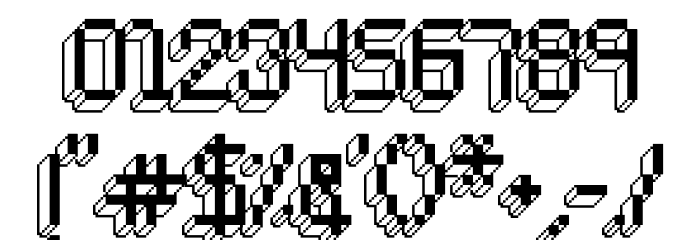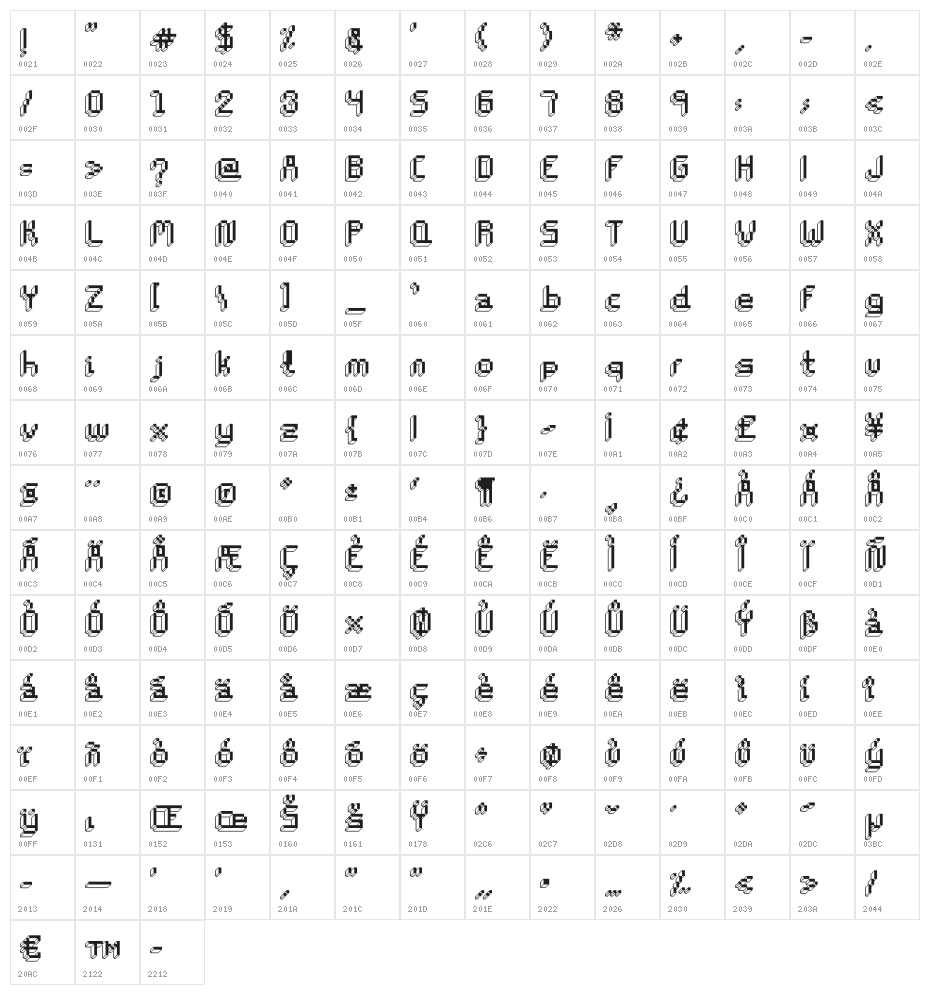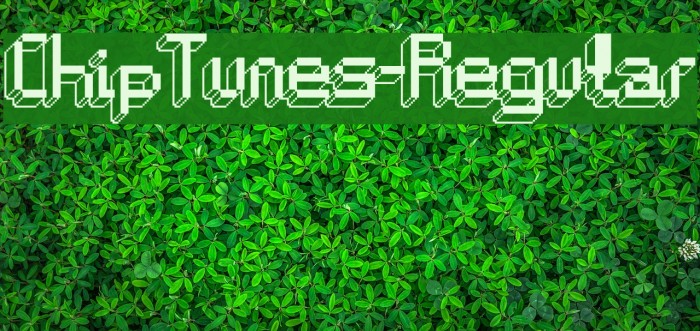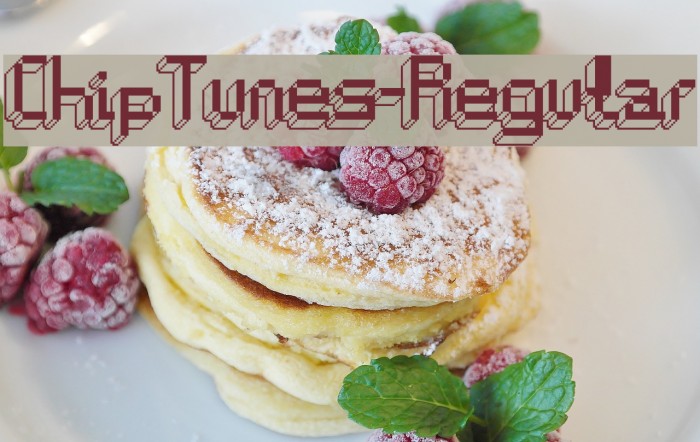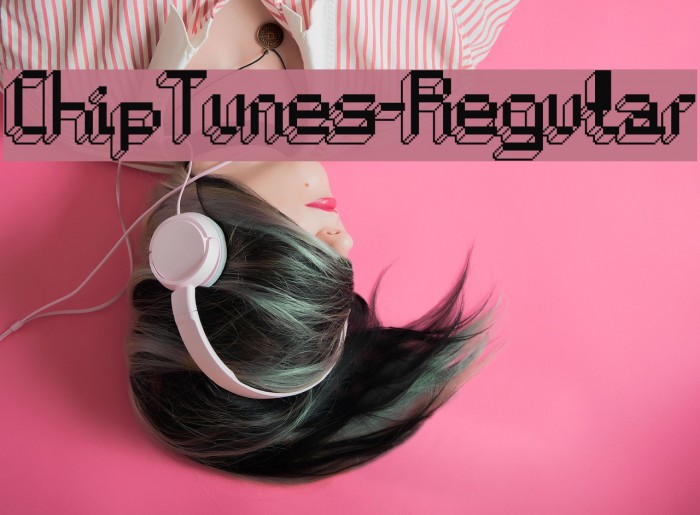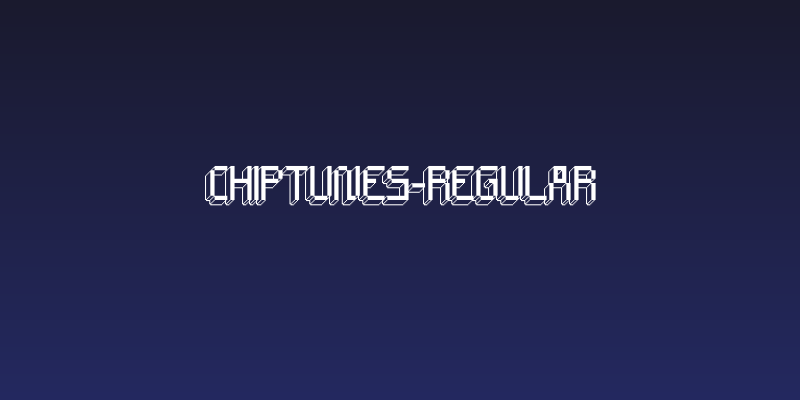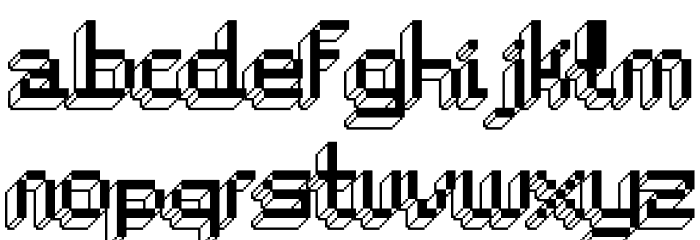
ChipTunes-Regular Font
ChipTunes-Regular Description
This font features a distinct 3D block style reminiscent of retro video game graphics. Each character is constructed with a bold outline and a shadow effect that gives the illusion of depth. The uppercase and lowercase letters maintain a consistent geometric form, while the numerals and special characters follow the same design principles, ensuring uniformity across all elements. The angular, pixelated appearance adds a nostalgic, digital aesthetic that is both playful and eye-catching.
Overall StyleRetro, Digital
Proposed ProjectsIdeal for video game titles, retro-themed posters, digital art projects, and any design requiring a nostalgic or playful touch.